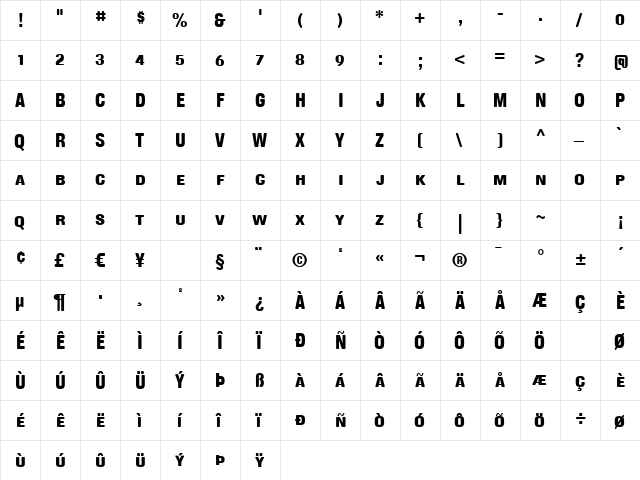
Ketchupa SmallCaps
Design Context for Ketchupa Typeface
Ketchupa is a composed and adaptable typeface that performs quietly and consistently across a wide range of design contexts.